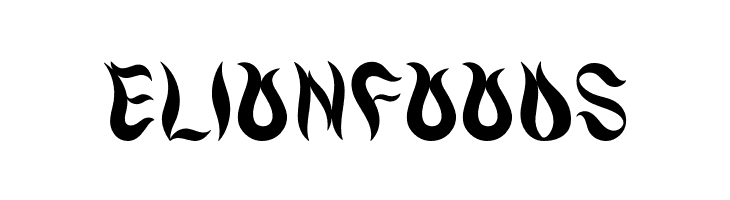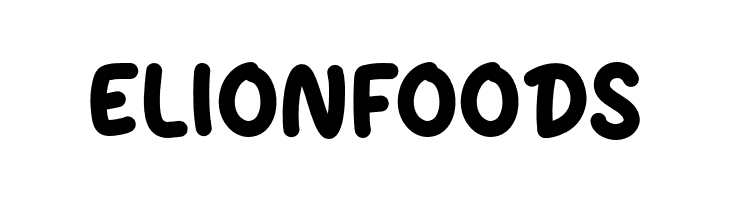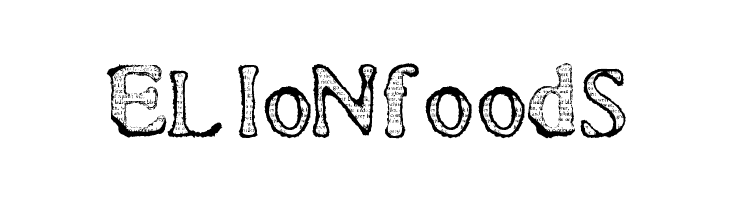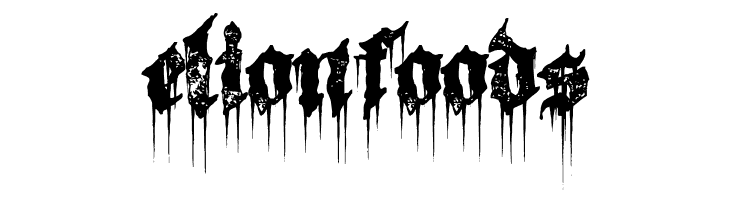
A bold, decorative font with an inline style, perfect for standout designs.
A bold, decorative font with rugged, hand-drawn outlines.
A modern, outlined font with geometric and balanced characters.
A modern sans-serif font with clean lines and excellent readability.
A rough, hand-drawn font with bold, textured characters.
A modern sans-serif font with a rounded, approachable design and excellent readability.
A bold, flame-inspired font with dynamic, fiery strokes.
A bold, gothic font with dripping, textured elements and a blackletter style.
A bold, playful, and hand-drawn font with rounded edges.